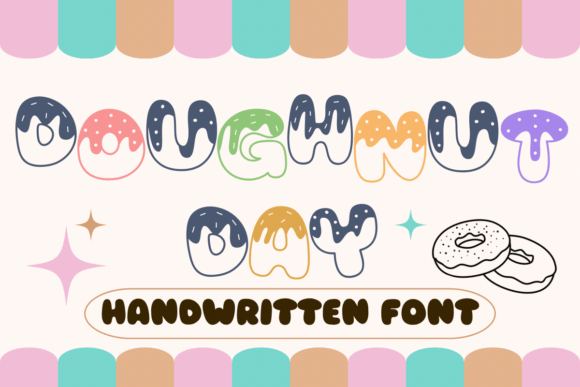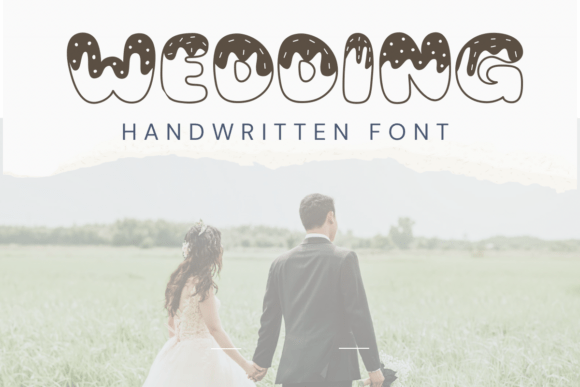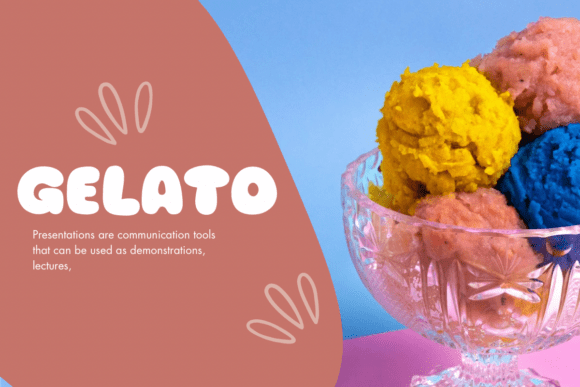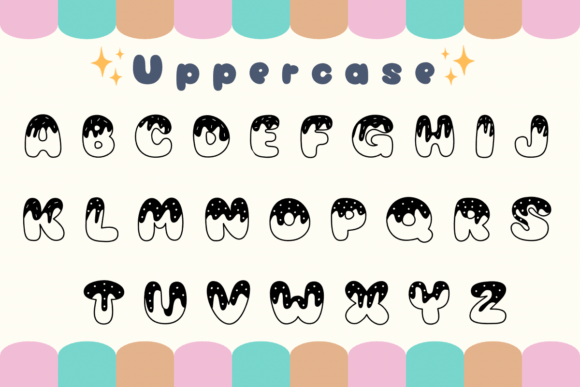
Doughnut Day Font
About the Doughnut Day Font
Elevate your designs with Doughnut Day Font, a font that combines sophistication with readability. Doughnut Day is a playful handwritten font that looks good enough to eat! Each letter is frosted with colorful toppings and sprinkles, capturing the sweet charm of doughnuts in a fun and whimsical way. With its bubbly forms and decorative icing elements, this font is perfect for bakery logos, kids’ party invites, dessert packaging, food blogs, and any design that craves a cheerful, sugar-coated vibe.
Whether you’re designing for sweet treats or playful branding, Doughnut Day adds a deliciously delightful flair that’s impossible to resist.
Doughnut Day Font Example